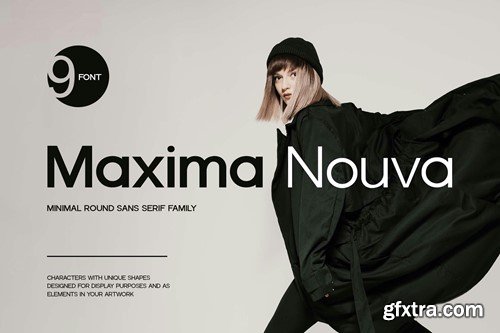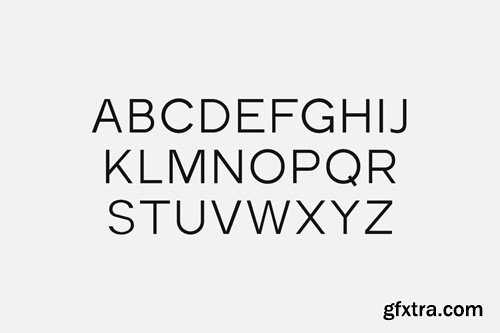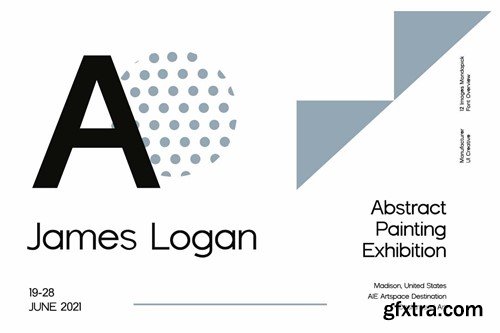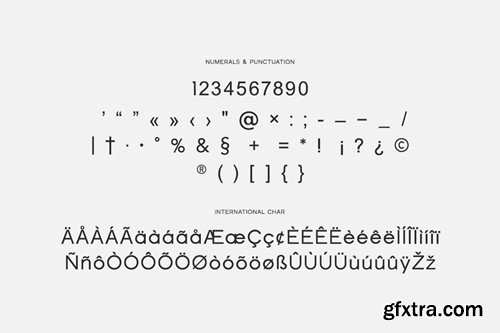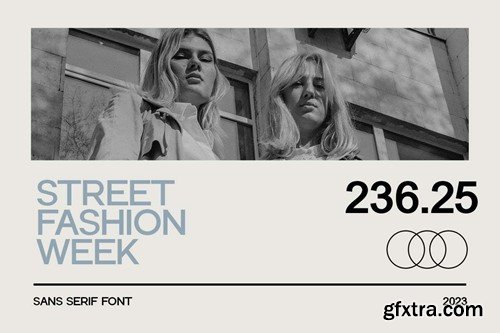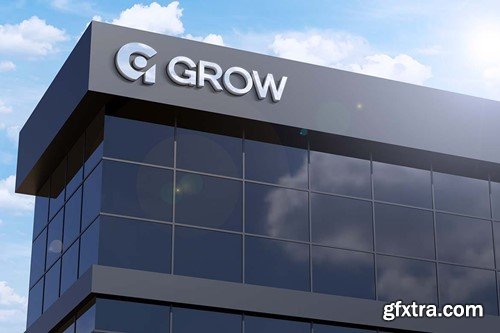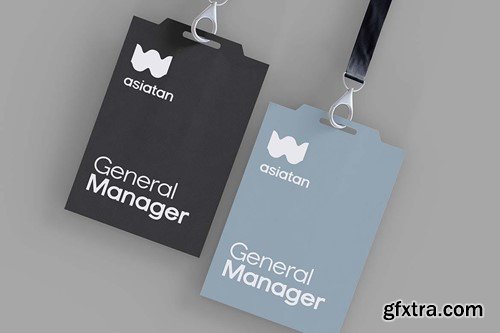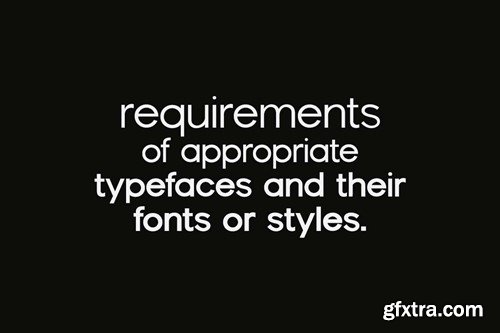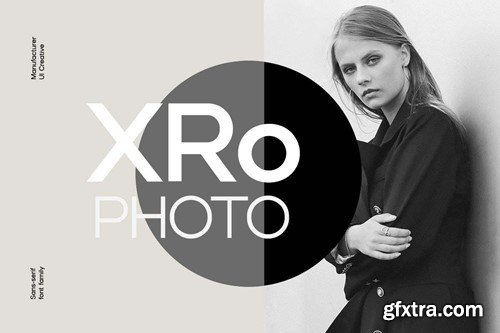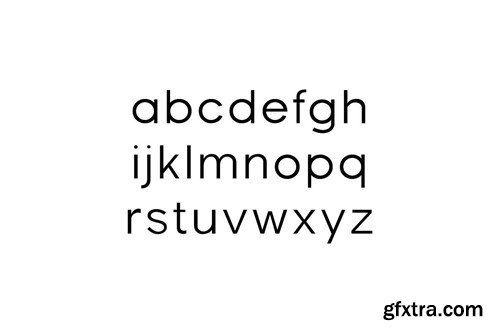
Maxima Nouva Modern Sans Serif Font Family NGFDLC7
Maxima Nouva Modern Sans Serif Font Family
Introducing our new product the name is Maxima Nouva Retro Sans Serif Font Family. Maxima Nouva Retro Sans Serif Font Family that feels beautiful classy, elegant, and modern. This font is perfectly suited for a wide variety of projects, such as signature, stationery, logo, wedding, typography quotes, magazine or book covers, website headers, branding, packaging design, and more. Also, fashion-related branding or editorial design displays both masculine and feminine qualities.